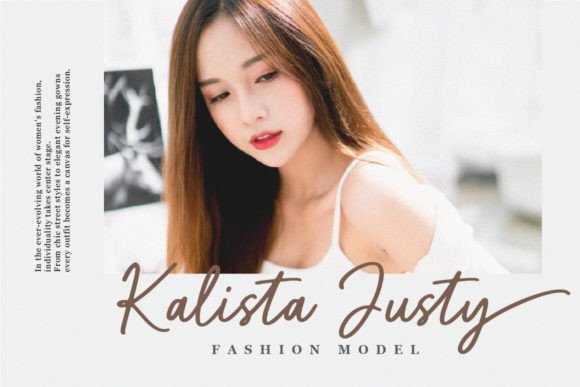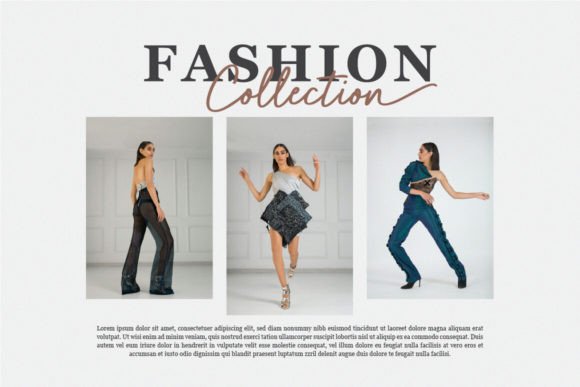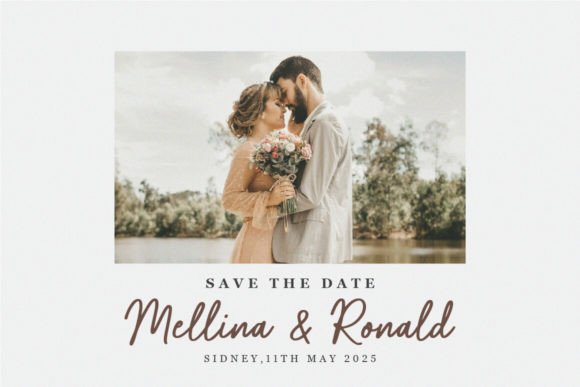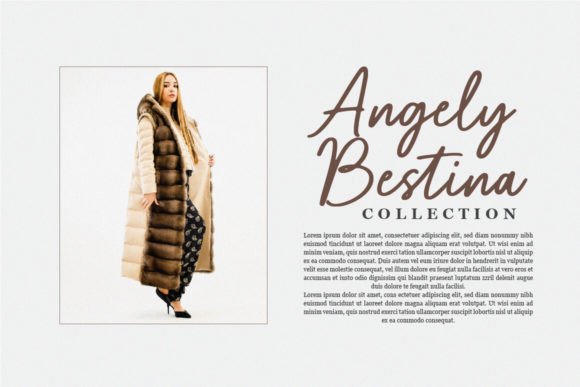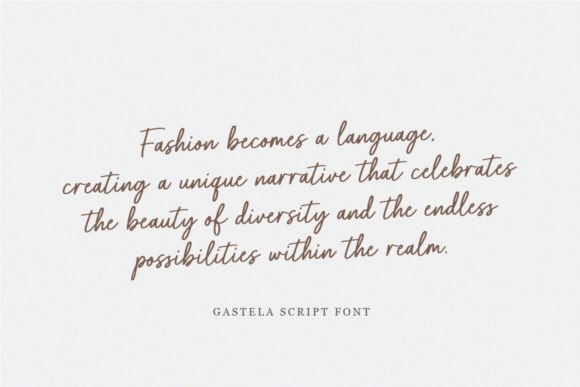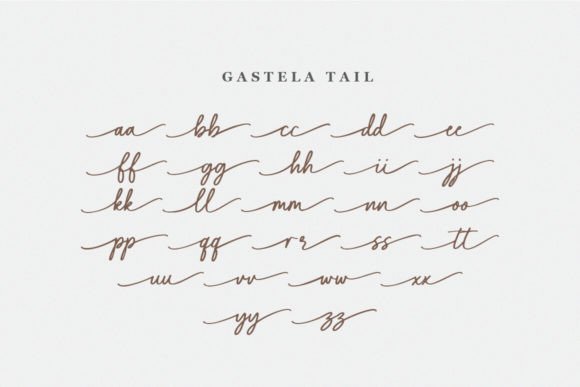
Gastela Font: Elevate Your Designs with Elegant Handwritten Brush Script
Are you a designer or crafter looking for a font that can add a touch of elegance and sophistication to your projects? Look no further than Gastela Font, a beautiful handwritten brush script font that is sure to take your designs to the next level. In this article, we’ll explore the features and benefits of Gastela Font, and show you how to make the most of this stunning font.
What is Gastela Font?
Gastela Font is a handwritten brush script font that features elegant tails at the beginning and end of each letter. This unique design element gives Gastela a distinctive and sophisticated look that is perfect for a wide range of design projects, from wedding invitations and branding materials to packaging and advertising.
One of the standout features of Gastela Font is its use of ligatures. Ligatures are special character combinations that allow certain letters to flow seamlessly together, creating a more natural and authentic appearance. This feature is especially useful for designers who want to create beautiful, handwritten-style text that looks like it was written by a professional calligrapher.
Key Features of Gastela Font
- Elegant Handwritten Brush Script: Gastela Font features a beautiful, flowing script that is perfect for creating elegant and sophisticated text.
- Ligatures: Gastela Font includes ligatures, allowing certain letter combinations to flow seamlessly together for a more natural appearance.
- Beginning and Ending Swashes: Gastela Font includes separate beginning and ending swashes (tails) that can be used to add an extra touch of elegance to your designs.
Design Ideas with Gastela Font
Gastela Font is a versatile font that can be used for a wide range of design projects. Here are a few ideas to get you started:
- Wedding Invitations: Gastela Font is perfect for creating beautiful, elegant wedding invitations that set the tone for a special day.
- Branding Materials: Use Gastela Font to create stunning branding materials, such as logos, business cards, and letterheads.
- Packaging: Gastela Font is a great choice for packaging design, adding a touch of elegance and sophistication to your products.
- Advertising: Use Gastela Font to create eye-catching advertising materials, such as billboards, posters, and flyers.
In conclusion, Gastela Font is a beautiful handwritten brush script font that is perfect for designers and crafters looking to add a touch of elegance and sophistication to their projects. With its elegant tails, ligatures, and easy-to-use design, Gastela Font is a versatile font that can be used for a wide range of design projects. Whether you’re creating wedding invitations, branding materials, packaging, or advertising, Gastela Font is sure to take your designs to the next level.